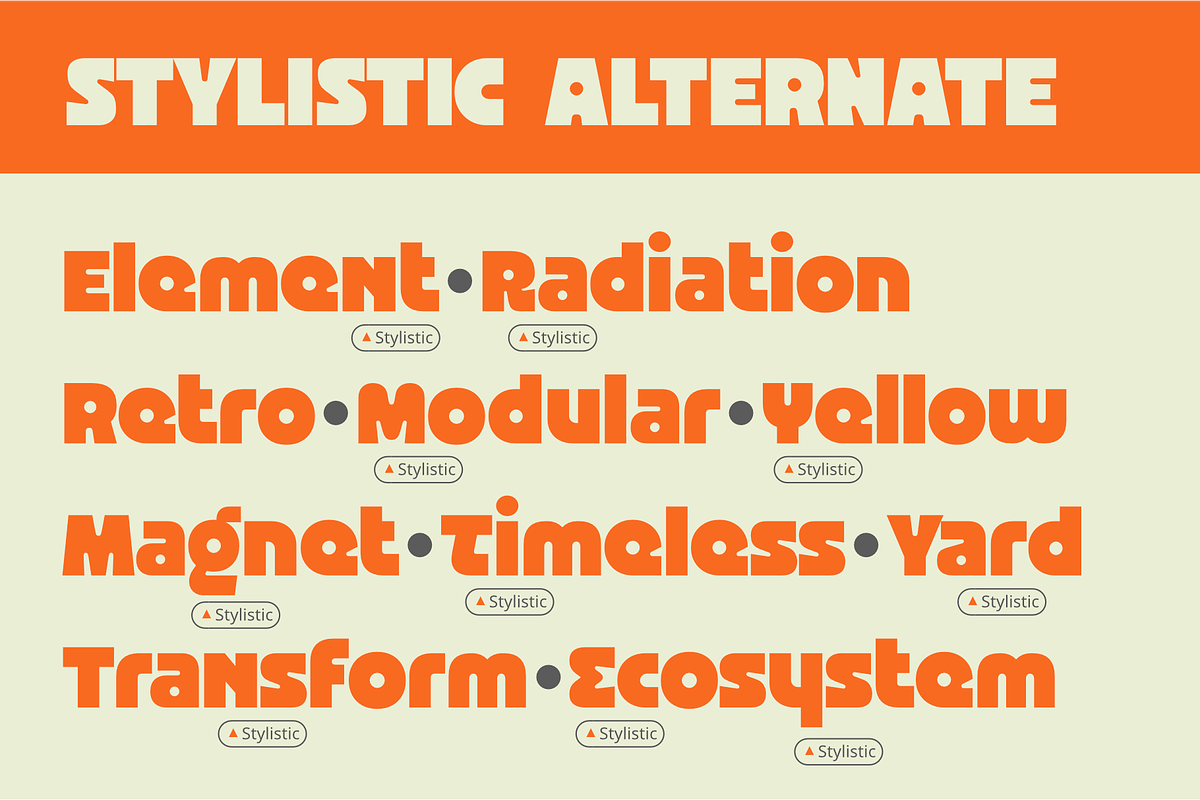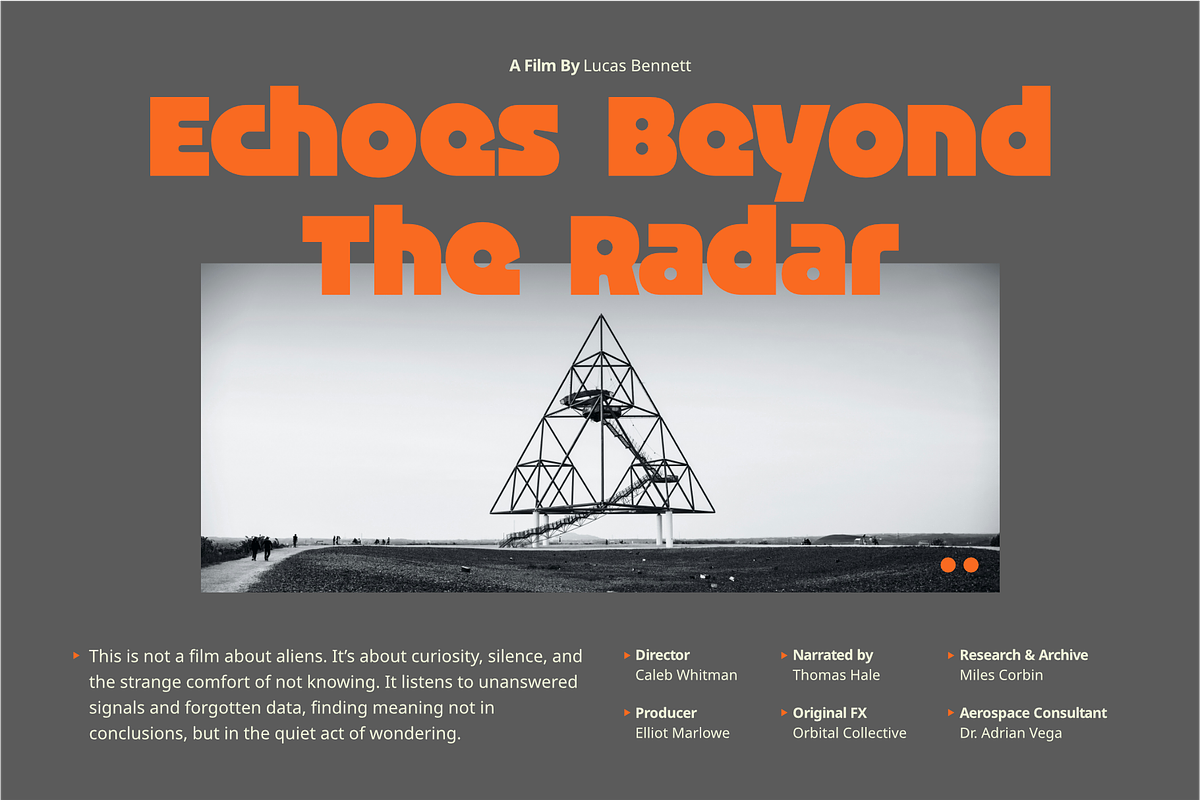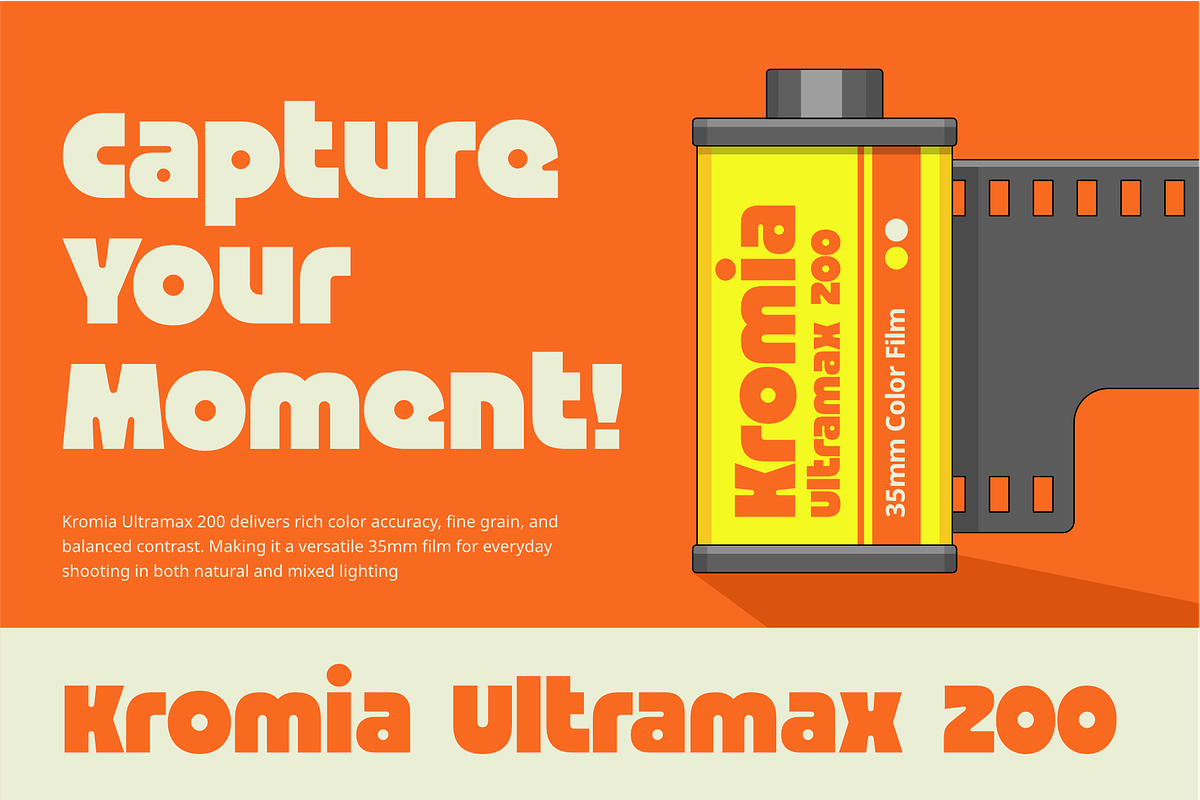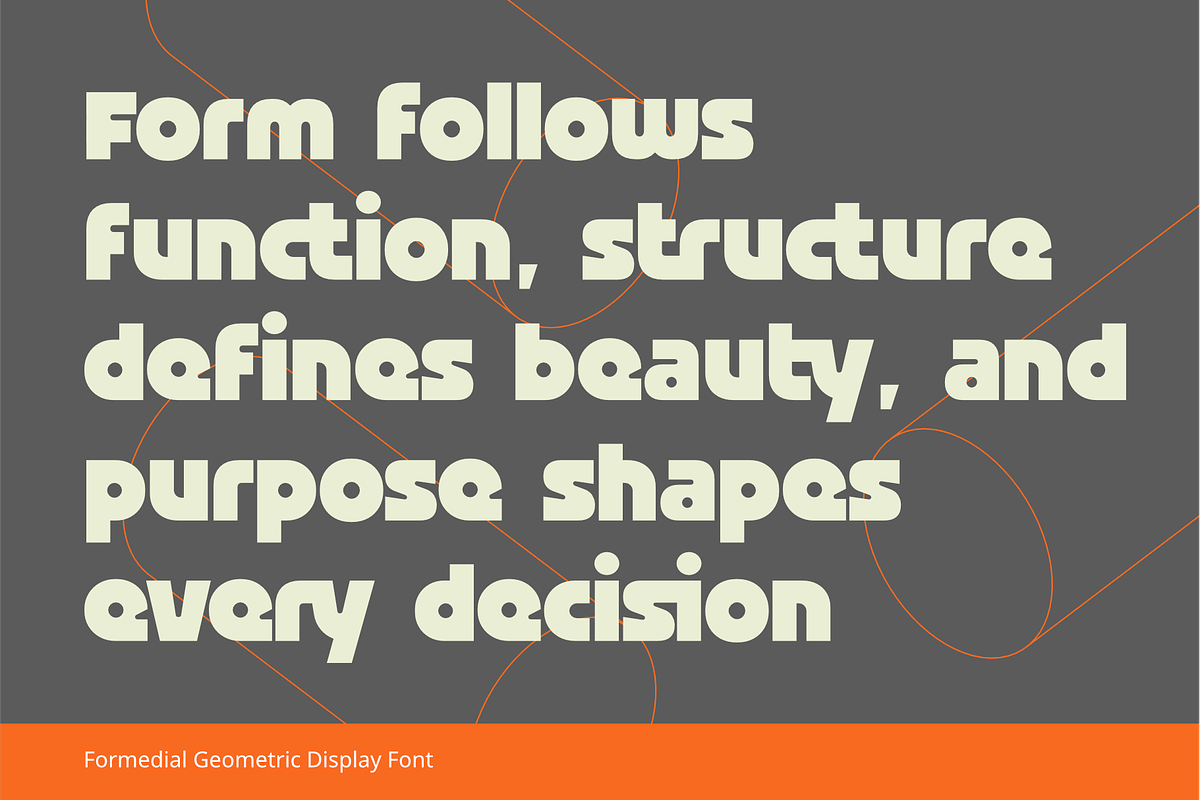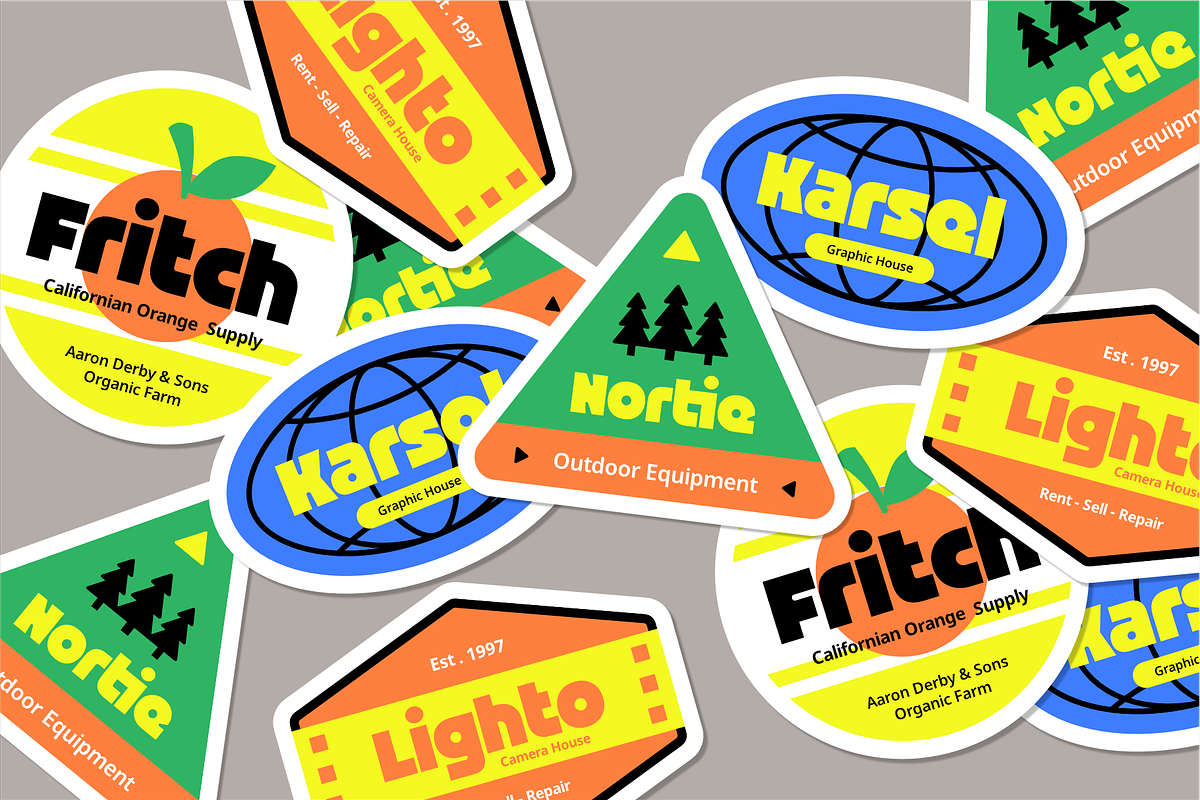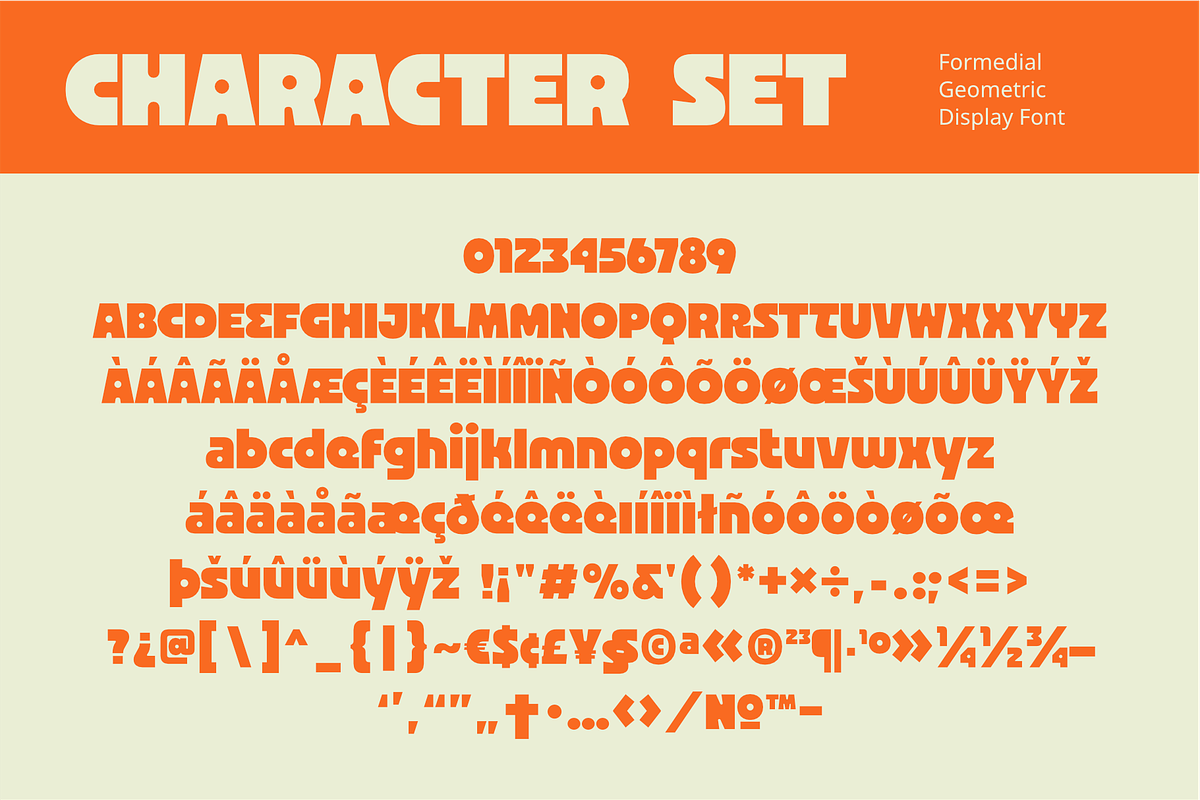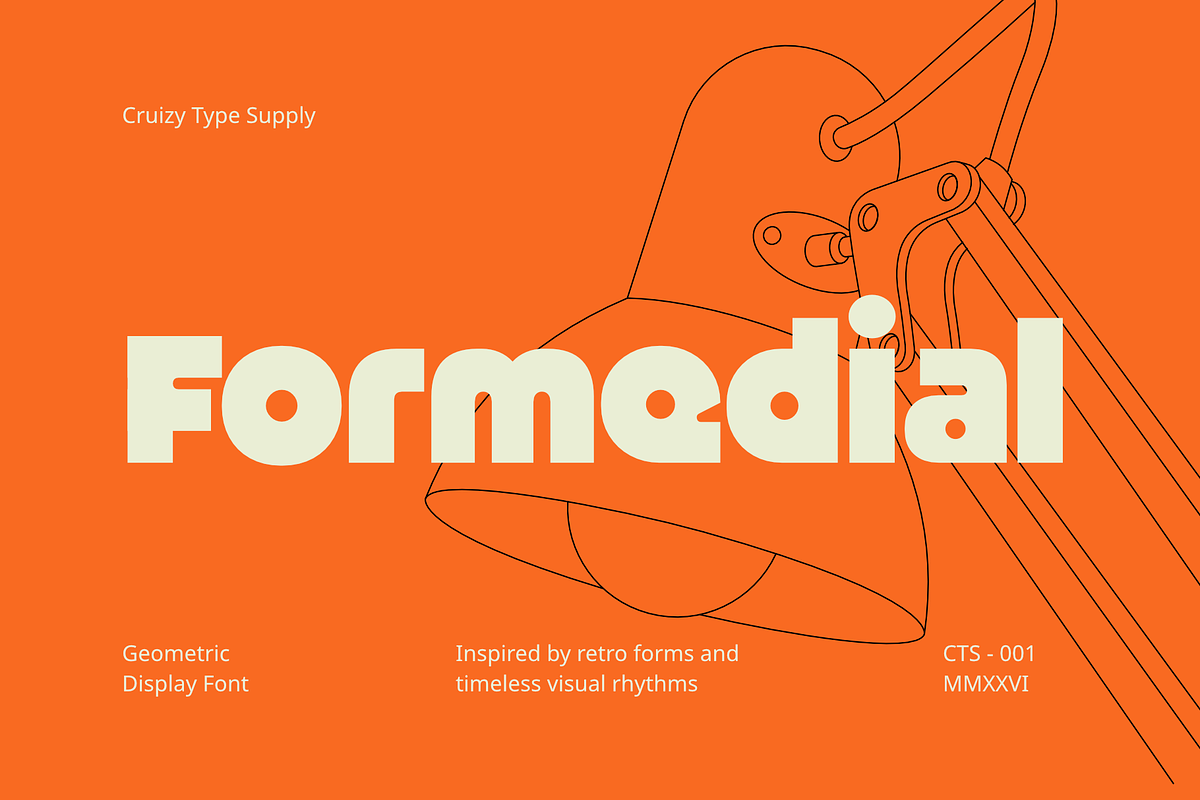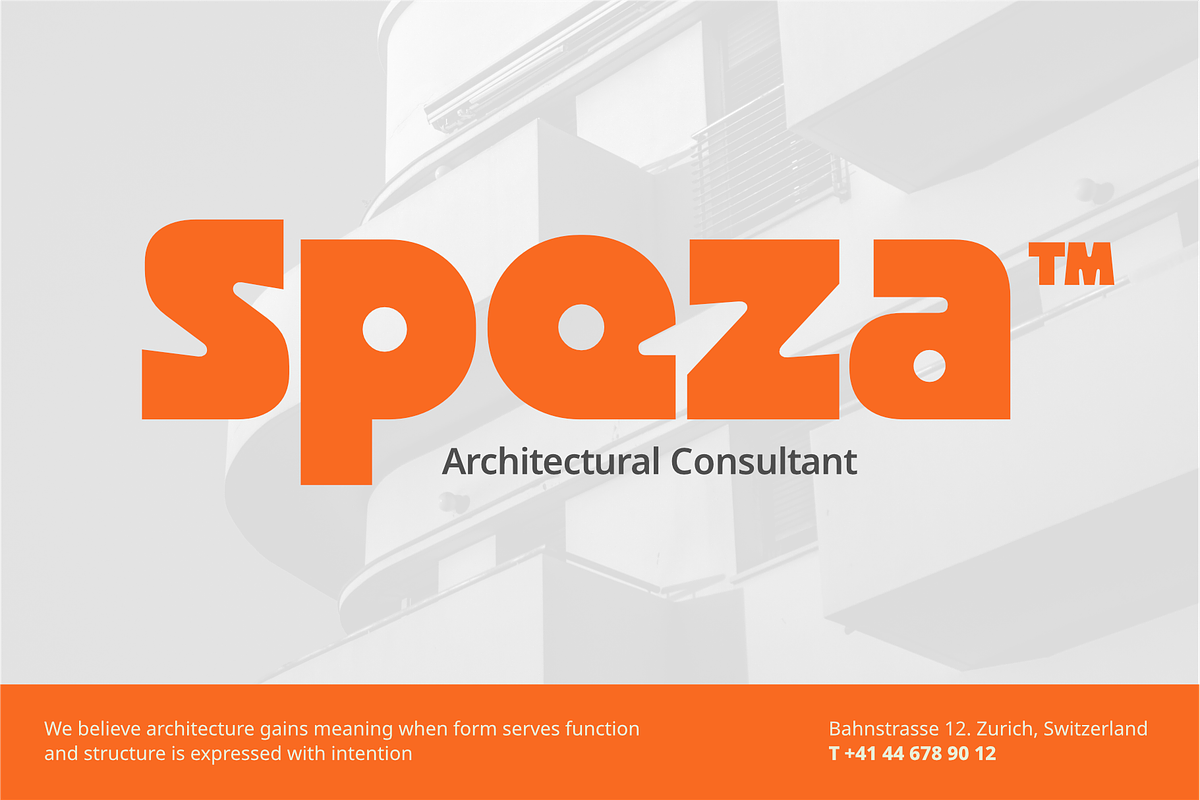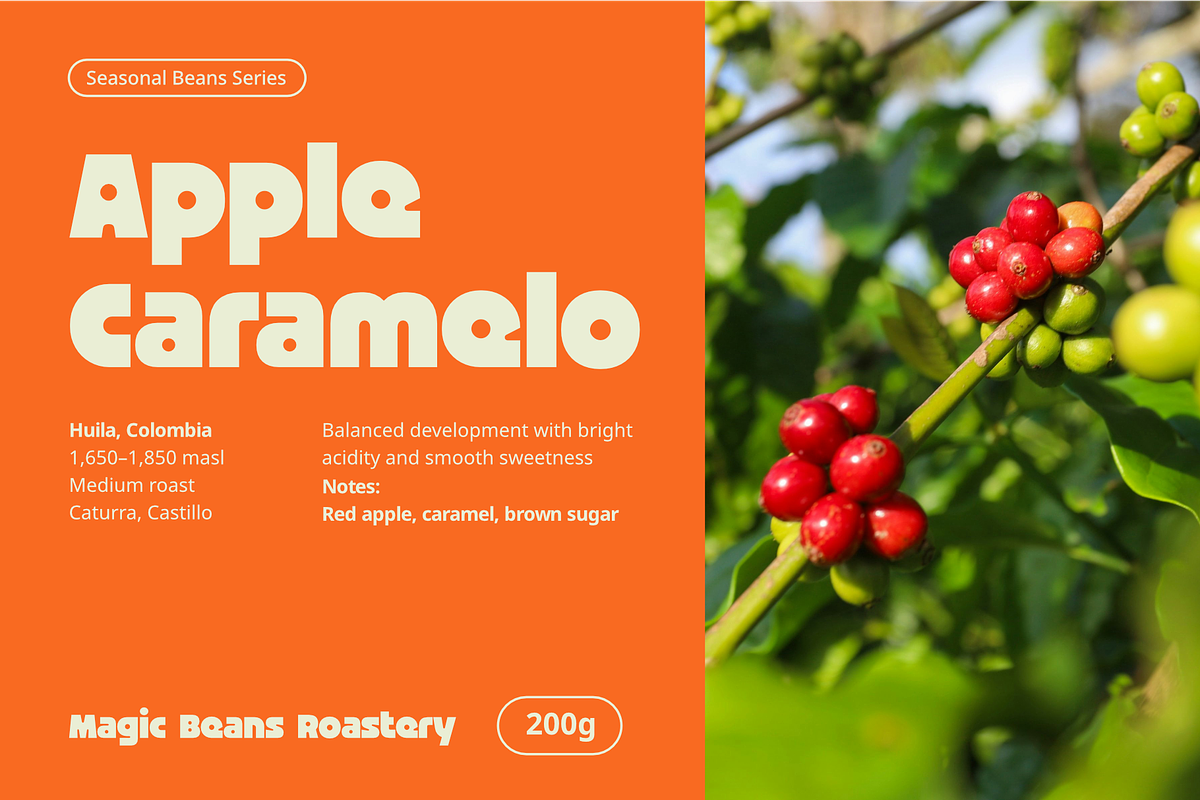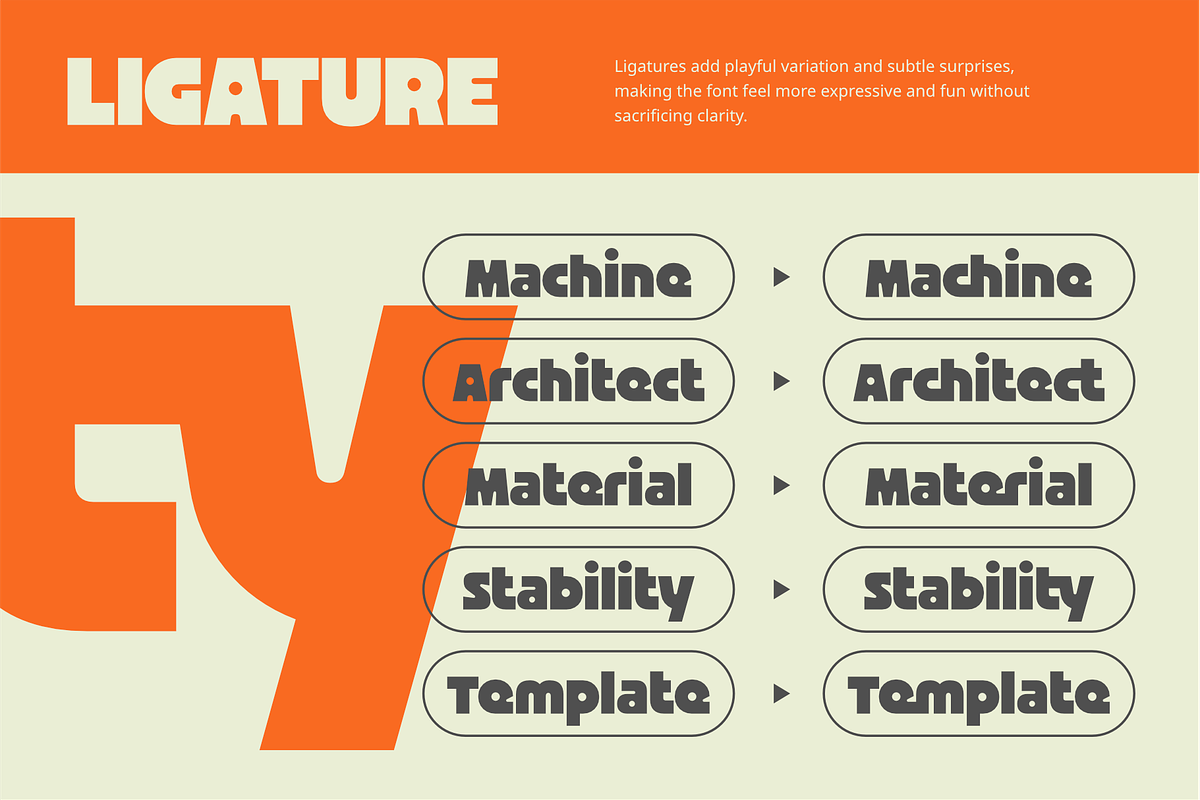
FORMEDIAL - Retro Geometric Display
FORMEDIAL grows from simple geometric forms, shaped by the spirit of retro graphics and Bauhaus experimentation, then gently pushed forward into a more futuristic space. Its letters feel constructed yet relaxed, with proportions that echo mid-century design while allowing room for play.
The typeface is made to adapt. In bold headlines it feels solid and confident, while stylistic alternates and ligatures quietly shift the rhythm, adding unexpected moments and a slightly funky attitude. These variations keep repeated words from feeling rigid and help the font respond naturally to different contexts.
FORMEDIAL is comfortable on packaging, film titles, and event posters, but never locked into one voice. It invites exploration structured enough to feel intentional, flexible enough to stay expressive.
- All-Caps Character
- Symbol, Punctuation & Currency
- Stylistic Alternate